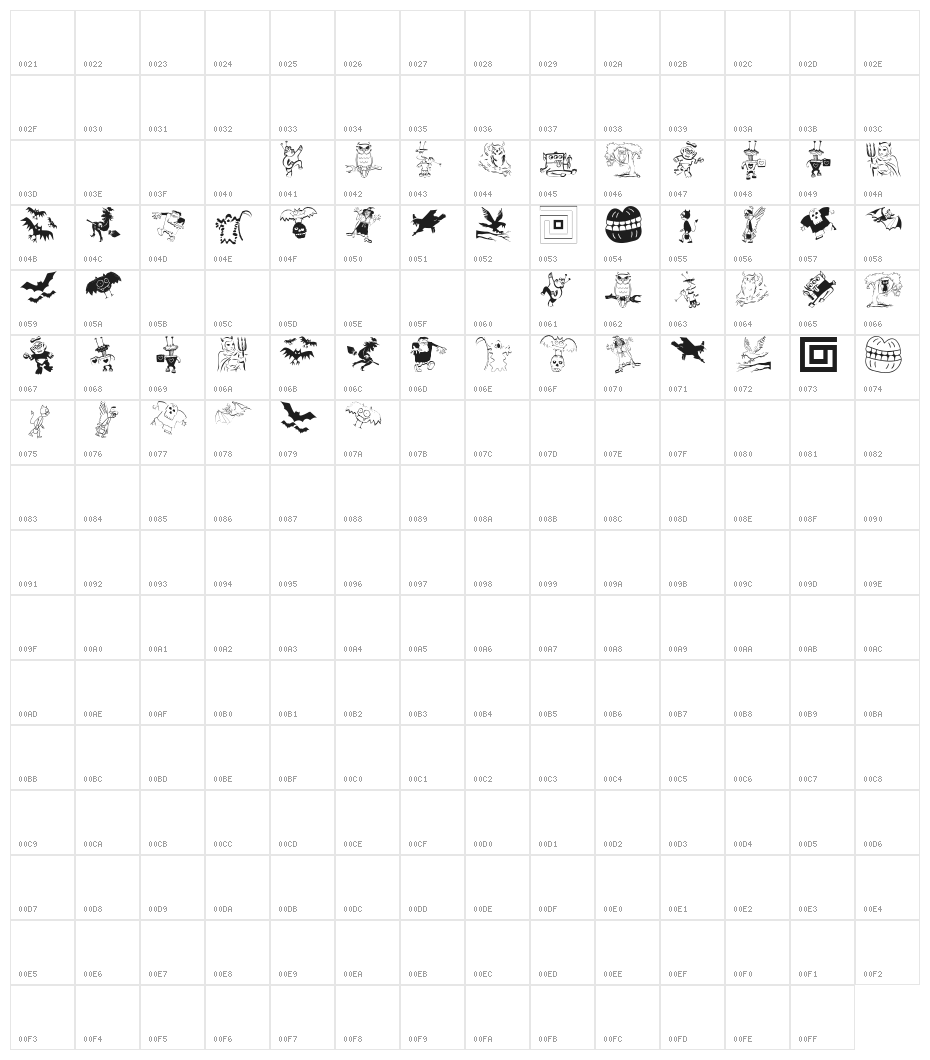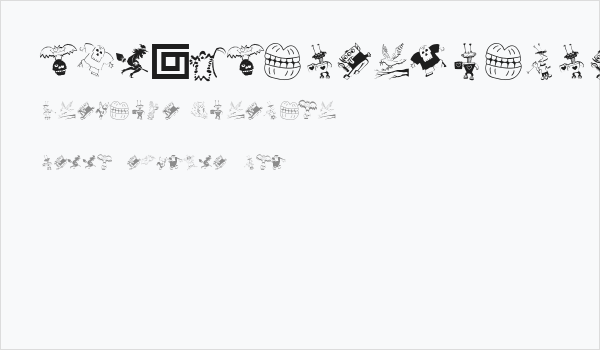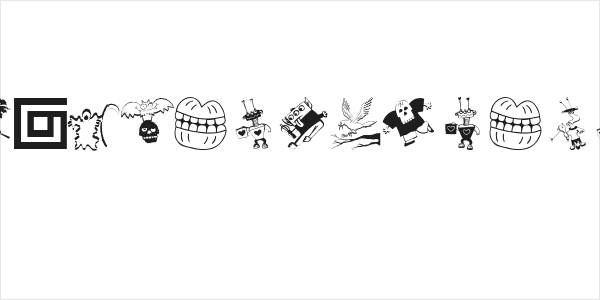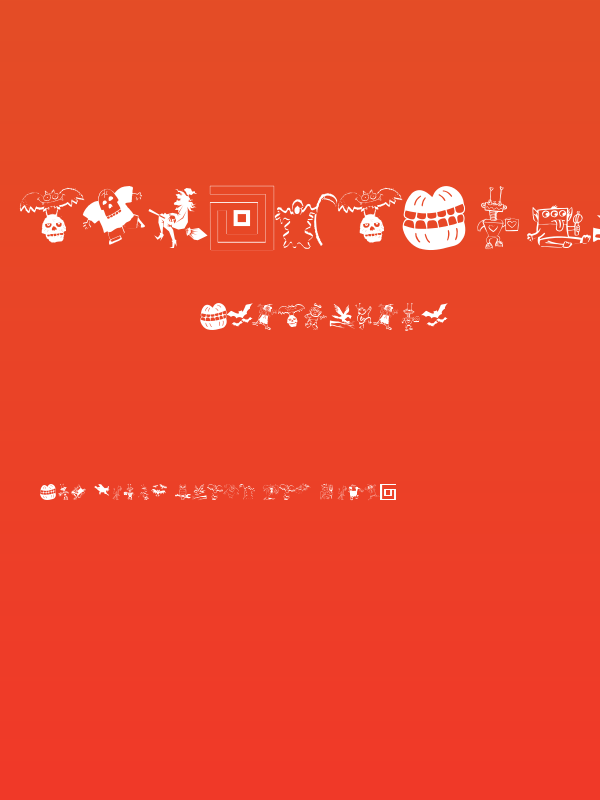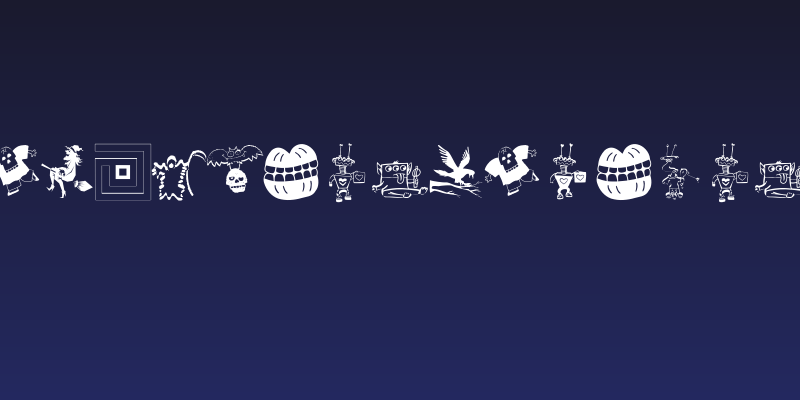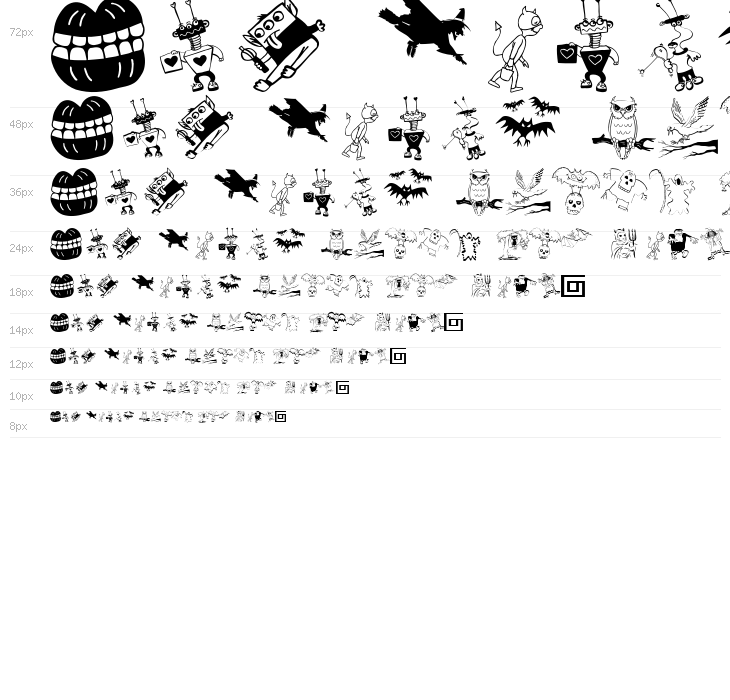
OwlsNOtherWitches Font
OwlsNOtherWitches Description
A playful and whimsical decorative font composed entirely of Halloween-themed illustrations, including owls, witches, bats, ghosts, monsters, and other spooky characters, each representing a different letter or symbol.
| Overall Style | Whimsical, Playful, Thematic |
| Use Case | Headlines, Posters, Themed Graphics |
| Proposed Projects | Halloween party invitations, children's event posters, themed banners, greeting cards, seasonal crafts. |